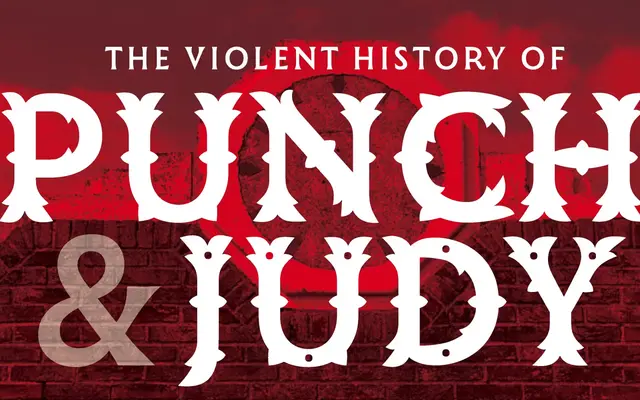
LTR Very Bauble
An all-caps display face from LettError built on a single variable Serif axis that slides through five distinct designs, from a clean sans to a fully tuscan form bristling with bifurcated terminals, thorns, inlines and pips.
The Serif axis steps through five named states, each containing visual features that appear only at the designated point along the interpolation, making the variable font behave like a sequence of costume changes rather than a smooth blend. Three stylistic sets give additional control over ornamental details: the default runs pips and lines together, while Solid strips them away and Pipped or Lined isolate each element. The character set covers uppercase, extended Latin diacritics, numerals, currency symbols and punctuation, with a notable asterism and a new asterisk among the highlights.
A decorative display face built around a variable Serif axis that transitions between a clean sans and a fully tuscan form with bifurcating terminals, inlines, thorns and pips. The tuscan tradition and explicitly ornamental intent place it firmly in the display/ornamental subcategory.